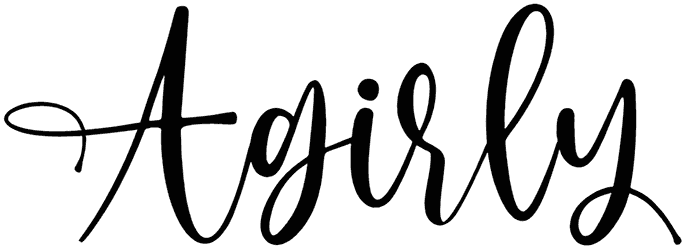
Agirly Font
What your design needs to become unique is a cute and delicate letterform, and this handwritten font has the potential to make it happen. Even without numbers, this cursive font is gonna be a delightful selection for var…
What your design needs to become unique is a cute and delicate letterform, and this handwritten font has the potential to make it happen. Even without numbers, this cursive font is gonna be a delightful selection for varied projects such as an easter event flyer, a birthday card, or so forth. Be creative and make surprising layouts with the Agirly font.